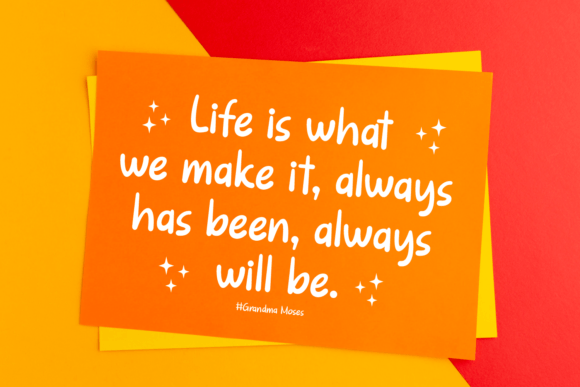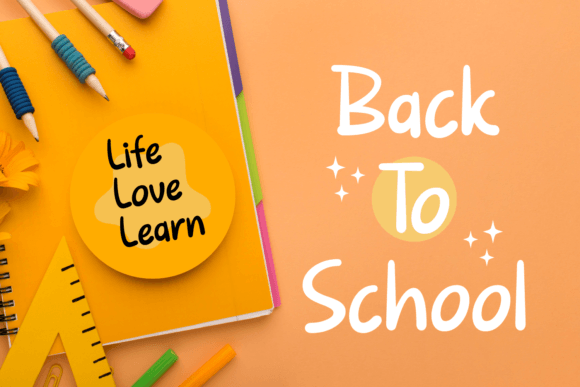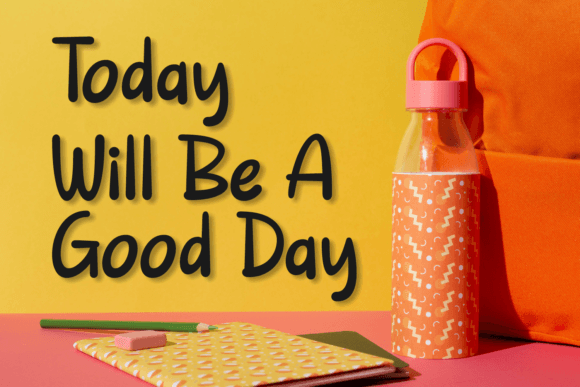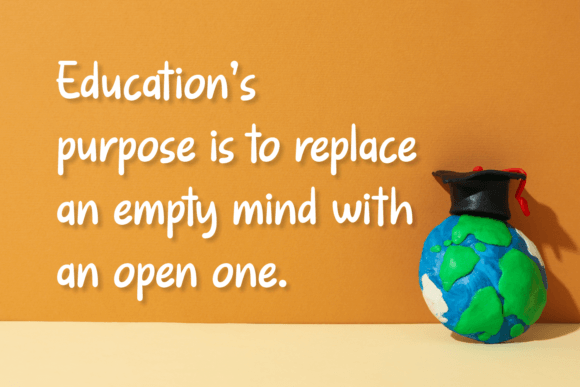
Introduction to Cute Beyond Font
Have you ever found yourself in a creative frenzy, surrounded by scribbled notes, scattered papers, and half-finished projects? That’s exactly where I was when I stumbled upon the enchanting Cute Beyond Font – a playful handwritten font that brought my ideas to life. As a designer, I’ve been searching for the perfect font to elevate my projects, and I’m excited to share this hidden gem with you.
Cute Beyond Font is a free download that has quickly become a design resource staple in my arsenal. Its high-quality, transparent background makes it perfect for any creative project, from logos and product packaging to invitations and book covers. Whether you’re a seasoned pro or just starting out, this font is sure to bring a touch of whimsy and charm to your designs.
Key Features of Cute Beyond Font
- Unique, playful characters with a transparent background, ideal for web design and digital art.
- Unique characteristics: whimsical, childlike, and endearing, making it perfect for branding, logos, and illustrations.
Honest Review: Cute Beyond Font
I recently stumbled upon the Cute Beyond Font and I’m excited to share my honest review. As a designer, I’m always on the lookout for high-quality design resources to elevate my creative projects. This font definitely caught my eye, and I was impressed with what it has to offer.
- ✨ High-quality design: The font is crisp and clear, making it perfect for digital projects.
- ✨ Versatile: It’s suitable for a wide range of creative projects, from logos to social media graphics.
- ✨ Transparent background: This feature is a game-changer for designers who want to create beautiful backgrounds and graphics.
- ⚠️ Limited language support: The font only supports a few languages, which might be a limitation for designers who need to work with multiple languages.
- ⚠️ Not ideal for print projects: The font’s high-resolution design is perfect for digital projects, but it might not be suitable for print projects due to its digital origins.
Overall, I’m impressed with the Cute Beyond Font’s quality and versatility. While it has some limitations, it’s an excellent resource for designers who need a high-quality font for their creative projects. If you’re looking for a free download that can elevate your design game, I highly recommend giving it a try!
Cute Beyond Font
Tips for Getting the Most Out of Cute Beyond Font
To get the most out of the Cute Beyond Font, use it on designs with transparent backgrounds for a high-quality, professional look. Experiment with different font sizes and styles to add creativity to your project.
The Cute Beyond Font is perfect for use in creative projects such as social media graphics, blog posts, and presentations. Its high-quality design and transparent background make it ideal for use in a variety of design applications.